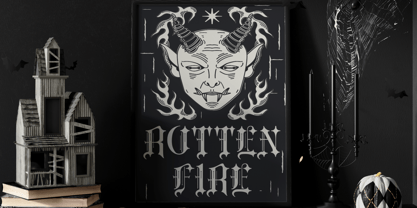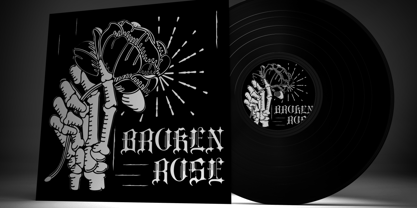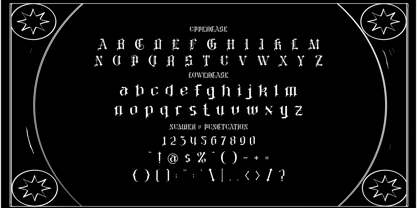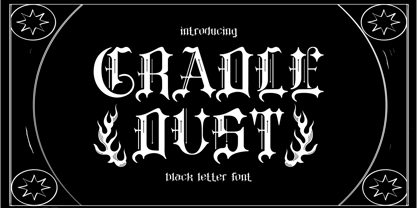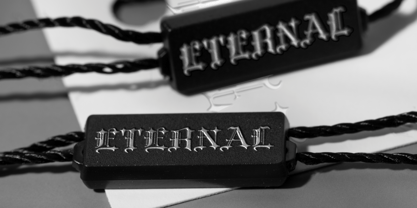
Cradle Dust
by Shanaf
The Cradle Dust Font Family was designed by Yesie Erma Yunita and published by Shanaf. Cradle Dust contains 1 styles. More about this family
Cradle Dust Black Letter Font is a gothic-inspired typeface designed with dramatic strokes, sharp edges, and intricate details that embody the essence of blackletter typography. The font combines the traditional elegance of medieval calligraphy with a modern metal-inspired aesthetic, creating a perfect balance between historic charm and contemporary edge. Each character is crafted with pointed serifs and ornamental touches, making it stand out in logos, posters, tattoos, and dark-themed branding. Its bold presence ensures that every word carries intensity and attitude, ideal for projects that demand attention.
This font is highly versatile for creative uses such as band logos, movie titles, album covers, invitations, stickers, and magazine headlines. Designers seeking a powerful blackletter style will find Cradle Dust perfect for projects related to gothic, metal, and dark fantasy themes. The font layout includes uppercase, lowercase, numbers, and punctuations, ensuring flexibility for various design needs. Whether you are crafting packaging for edgy products or creating artwork for events, this typeface elevates your design with its unique gothic energy.